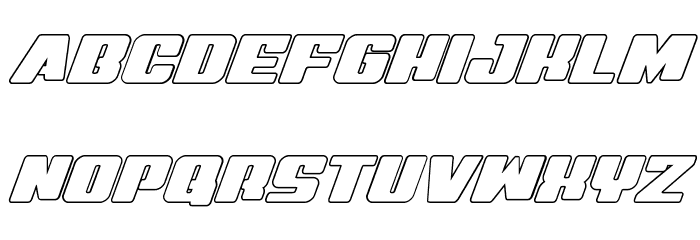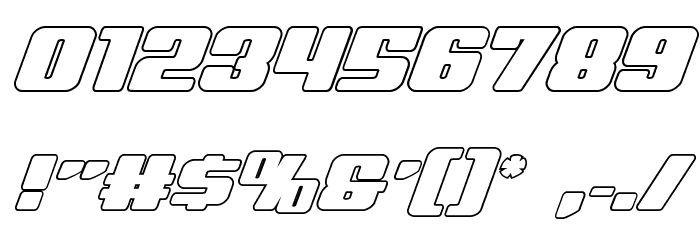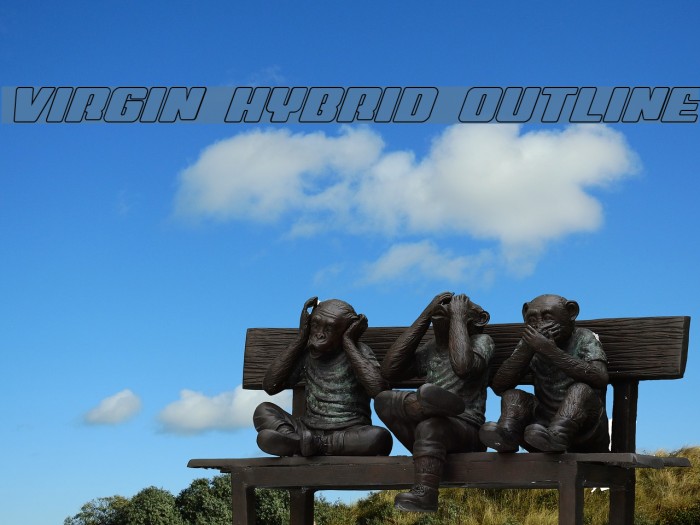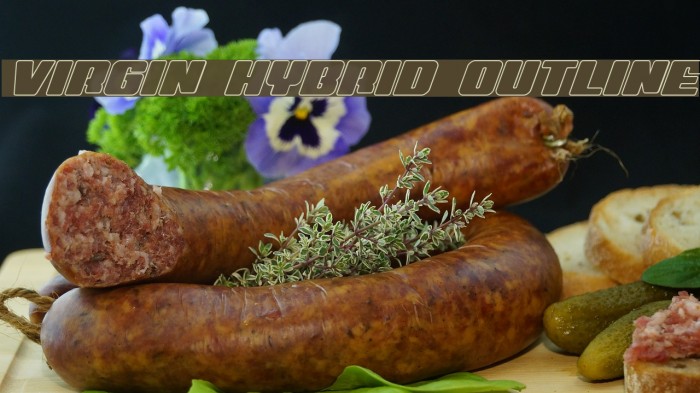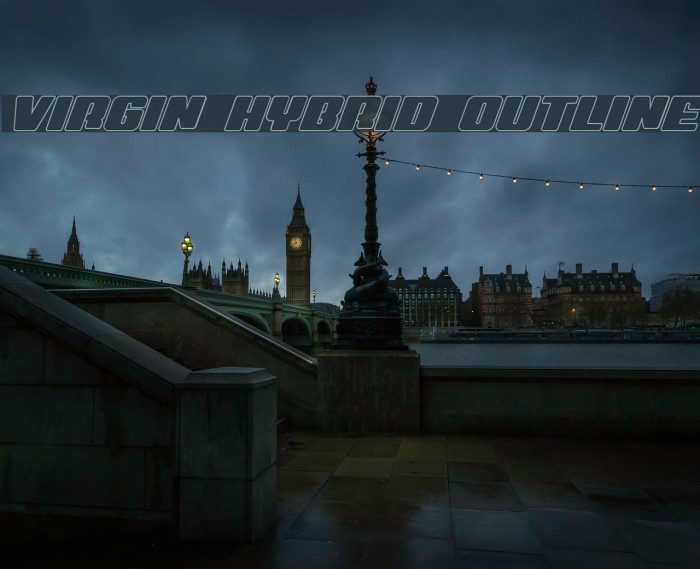
Virgin Hybrid Outline Font
This font features a bold, outlined style with a modern and futuristic aesthetic. The characters are uppercase and have a geometric, block-like appearance, giving them a strong presence. The outline effect adds a sense of depth and dimension, making the letters stand out. The design is clean and structured, with consistent line thickness throughout each character. The spacing between the letters is tight, which enhances the compact and cohesive look of the text. This font is ideal for projects that require a bold statement, such as headlines, posters, or branding materials. Its unique outline style makes it particularly suitable for designs that aim to capture attention and convey a sense of modernity and innovation.
A bold, outlined font with a modern, geometric style.
- Font: Virgin Hybrid Outline
- Proposed Projects: Ideal for headlines, posters, branding, and any design needing a bold, modern look.
- Character Spacing: Tight